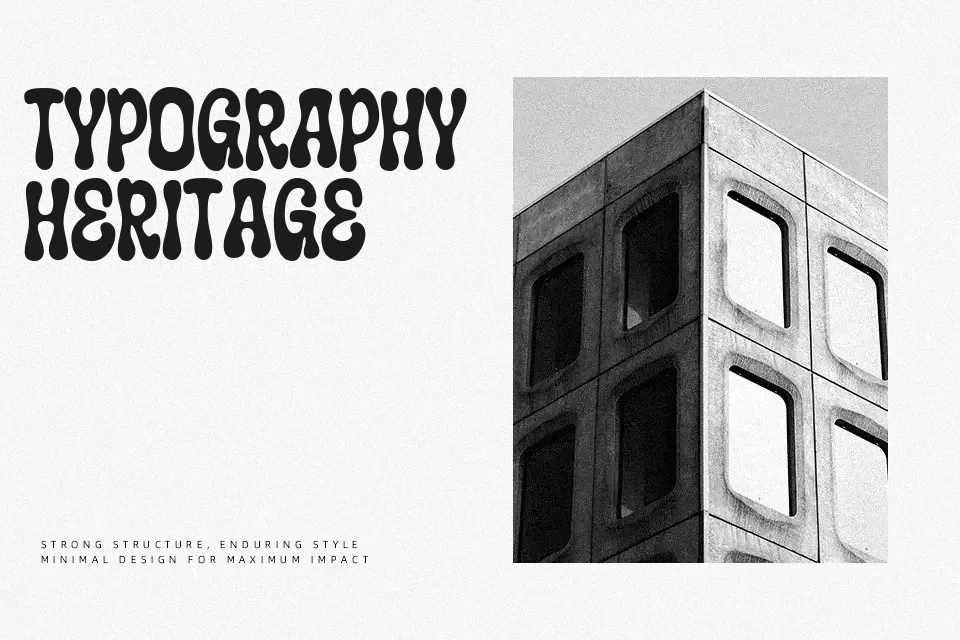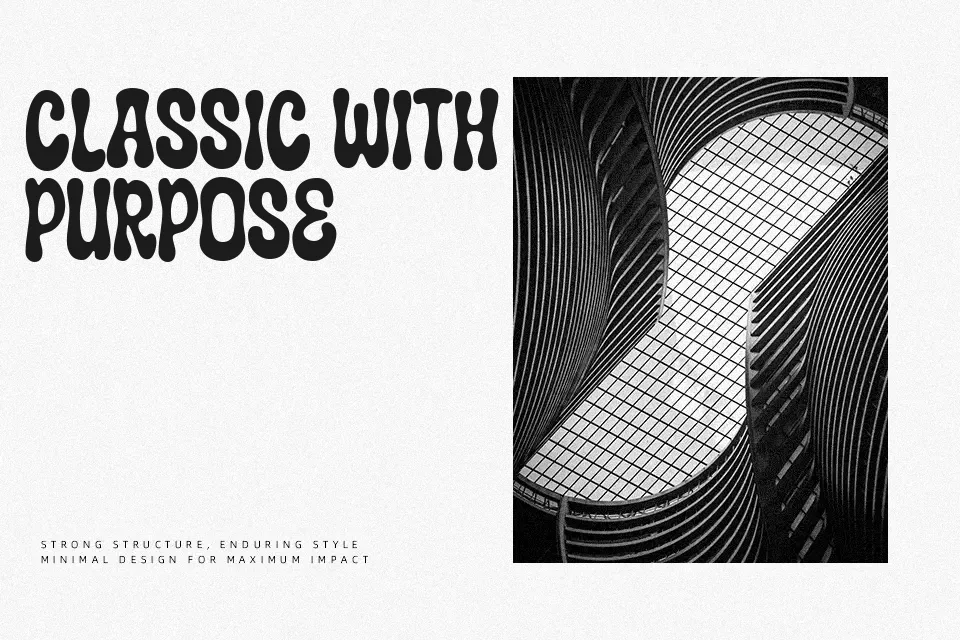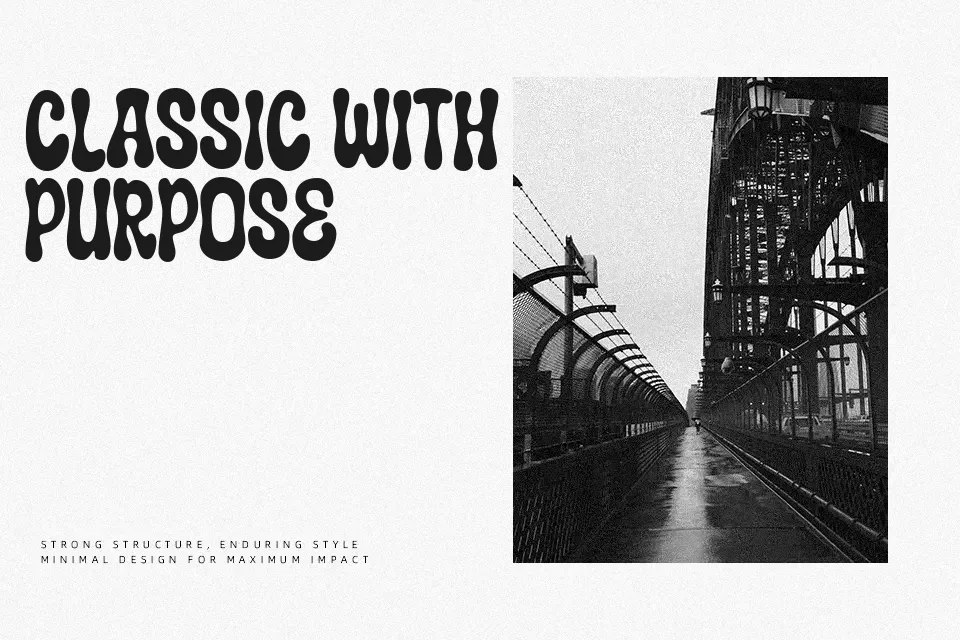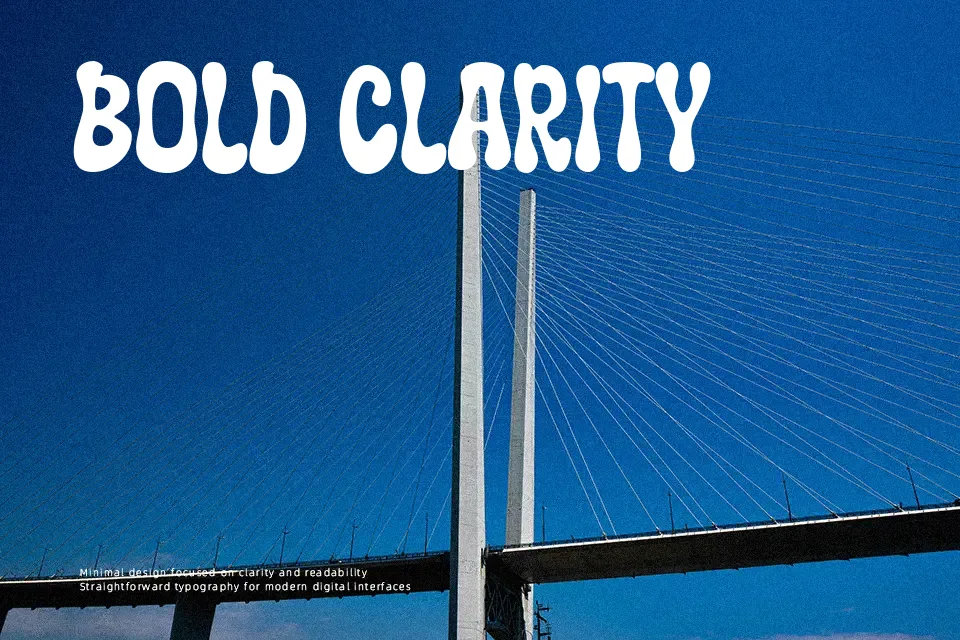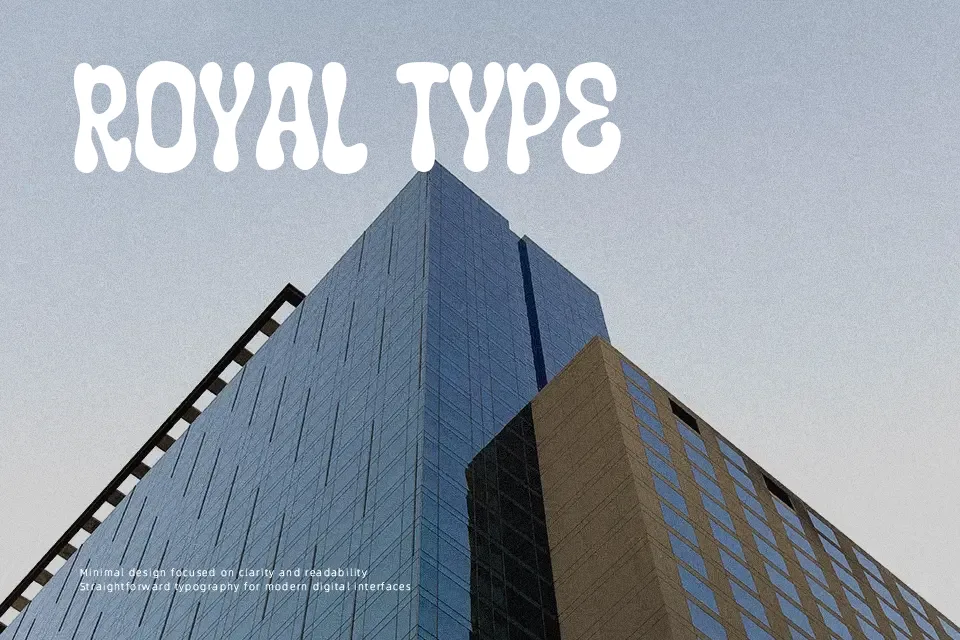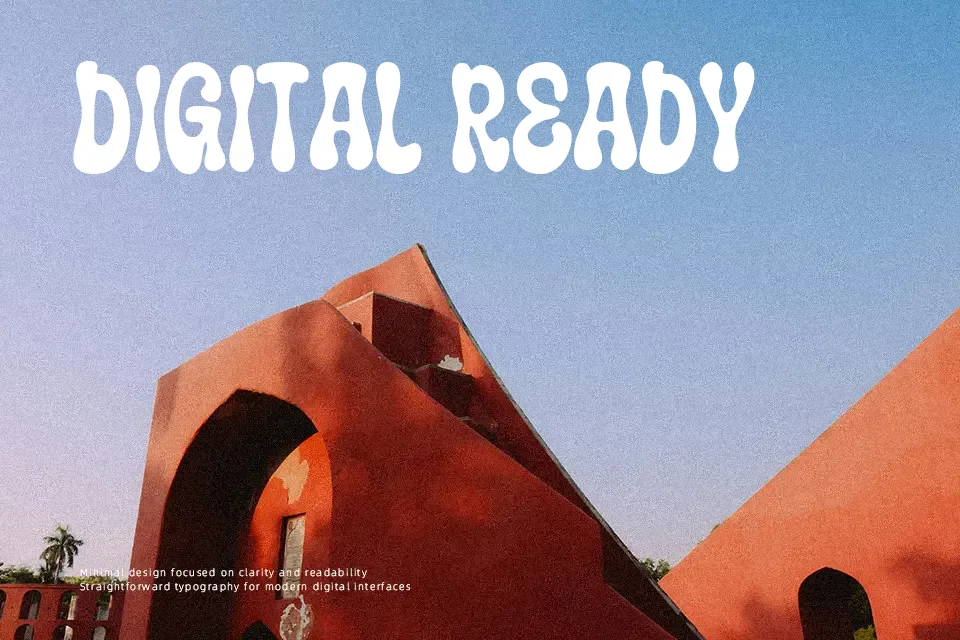
Super Bread Font
Defined by inflated proportions and generous inner counters, Super Bread Font establishes an energetic presence through plump letterforms and fluid outlines. The tight character spacing and substantial stroke weight maximize impact in large-format media such as event flyers, apparel graphics, and food branding. Uppercase characters maintain consistent baseline alignment, while the rounded ascenders preserve distinct silhouette recognition at medium scales. However, the exaggerated stroke thickness significantly diminishes legibility when set in multi-line paragraphs or compact interface captions. The heavy contours also crowd together in dense compositions, making the typeface far more effective as an isolated display element than a functional reading face.
Best For: vintage food packaging,children book covers,music festival posters,retro apparel graphics
Not Ideal For: continuous body text,mobile app interfaces,legal contracts,dense spreadsheet tables
Perfect for headline, kids, and logo, with a bubble and cartoon style.